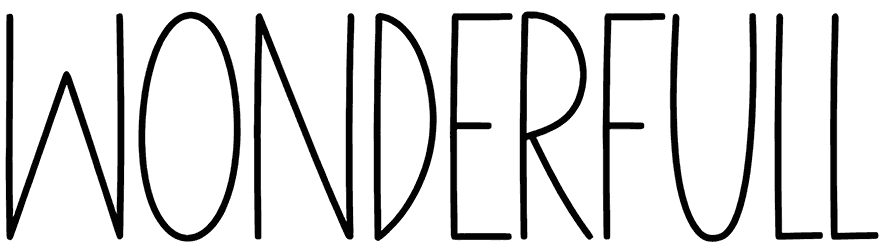
Wonderfull Font
Expressing your feelings and communicating with many people would be easy if your words had a minimal and friendly face. This is what a Wonderfull font can do. Even though this farmhouse font doesn’t include lowercase letters, put it on your Instagram post cover and enjoy the sweet outcome.